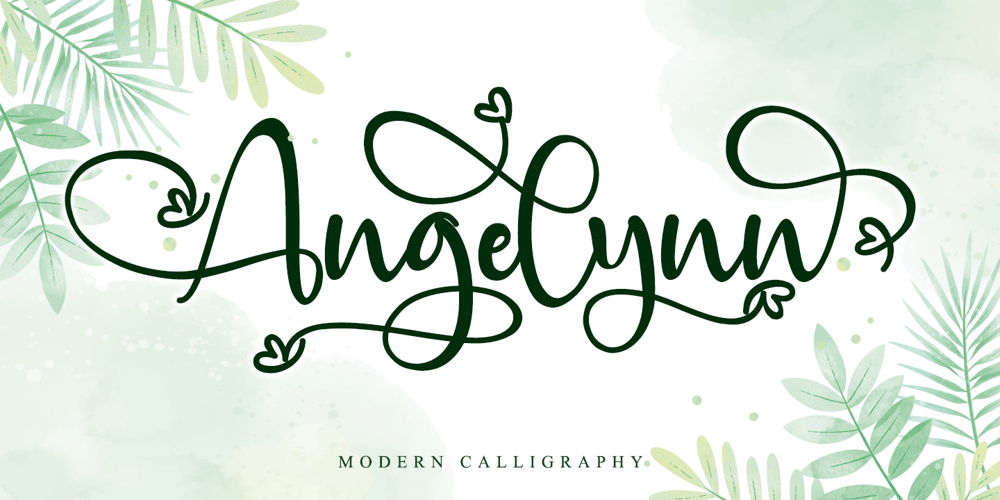
Angelynn Font Family was designed by Thomas Aradea and published by Letterara. Angelynn contains 2 styles and family package options. Angelynn is a beautiful Calligraphy font designed with an incredibly modern feel. This font is PUA encoded which means you can access all of the glyphs and swashes with ease! It features a varying baseline, smooth lines, gorgeous glyphs, and stunning alternates.Use this gorgeous and unique Calligraphy font to bring any DIY project to life!